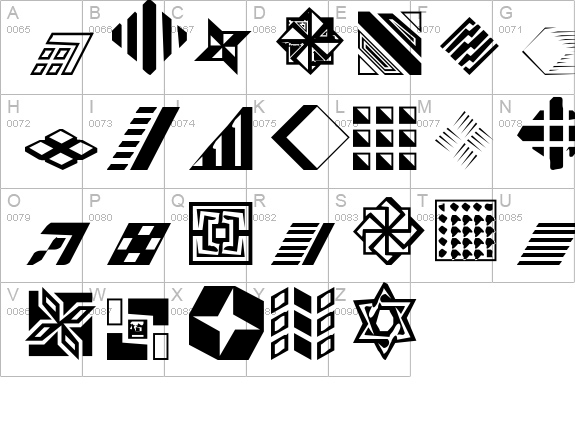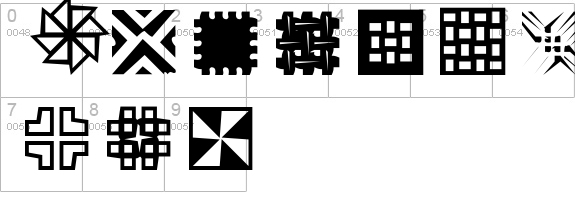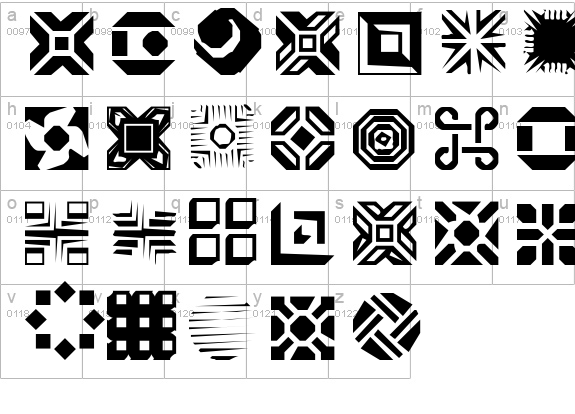
CarrDingbats1 Regular Font Details
CarrDingbats1 Regular is the standard, neutral variant in the CarrDingbats1 typeface family \xE2\x80\x94 well suited to general body text, paragraphs, and standard typographic work.
CarrDingbats1 Regular font is a whimsical and playful typeface that is perfect for adding a touch of fun to your designs. This font features a variety of unique dingbat characters that can be used to enhance your projects in a creative way. Whether you're designing greeting cards, invitations, or social media graphics, CarrDingbats1 Regular font is sure to bring a smile to your audience's face. The best part is, CarrDingbats1 Regular font is available for free download at FontsMarket.com. So you can easily add this charming font to your collection without any cost. Don't miss out on the opportunity to elevate your designs with the delightful CarrDingbats1 Regular font today!